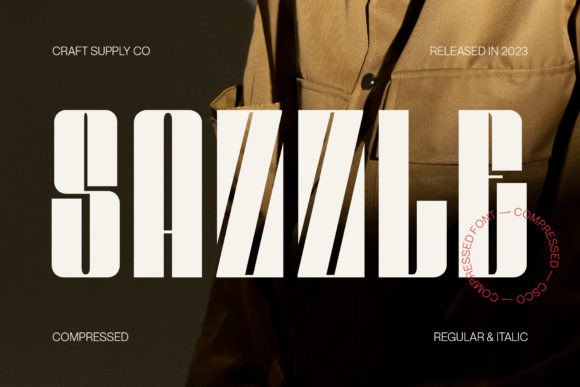
Unleash the Sizzle with Sazzle: A Font That Commands Attention
Enter the world of Sazzle - a captivating display font by Craftsupplyco that demands attention and elevates your designs to new heights. This compressed sans serif typeface is a masterpiece of minimalist expression, where letters dance with precision and elegance, leaving minimal white space in their wake.
With Sazzle, your creative projects will radiate sophistication, making a statement that's both bold and unforgettable. This font is a perfect choice for greeting cards, packaging, and branding, where you want to make an impact that lingers in the minds of your audience.
Sazzle's clean lines and modern appeal bring a breath of fresh air to posters and any design project that seeks an eye-catching and trendy look. Its versatility knows no bounds, allowing you to play with it endlessly, exploring different styles and combinations to suit your unique vision.